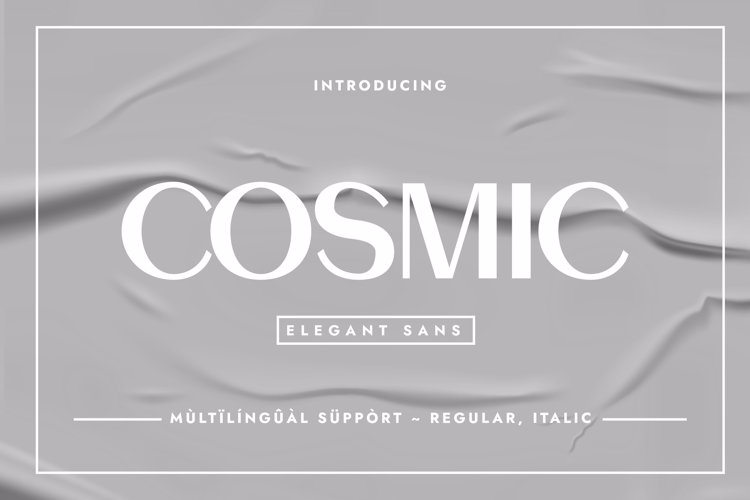
COSMIC Font
๐จ Font Name: Cosmic by Minimalist Art Studio
๐จ Font Description: Cosmic is an elegant sans serif with multilingual supportโideal for modern branding, editorial layouts, and minimalist packaging.
โ Complete Latin set + multilingual diacritics
โ Alternates, stylistic sets & ligatures
โ Numbers, small caps, and extended punctuation
โ Bonus italics and family styles